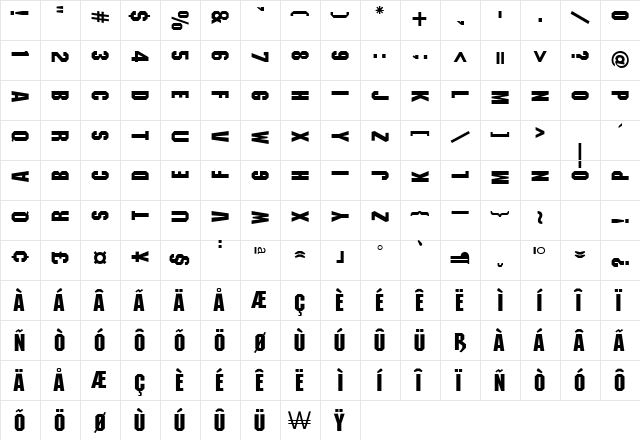
Blocky Sideways Regular Font Preview
Blocky Sideways Regular
Design Context for Blocky Sideways Typeface
Blocky Sideways takes a measured approach to typography — its balanced proportions and neutral character make it a reliable workhorse for both digital and print work.
Pro Tip: Use Blocky Sideways in both headline and body roles to test its range before committing to a single application.